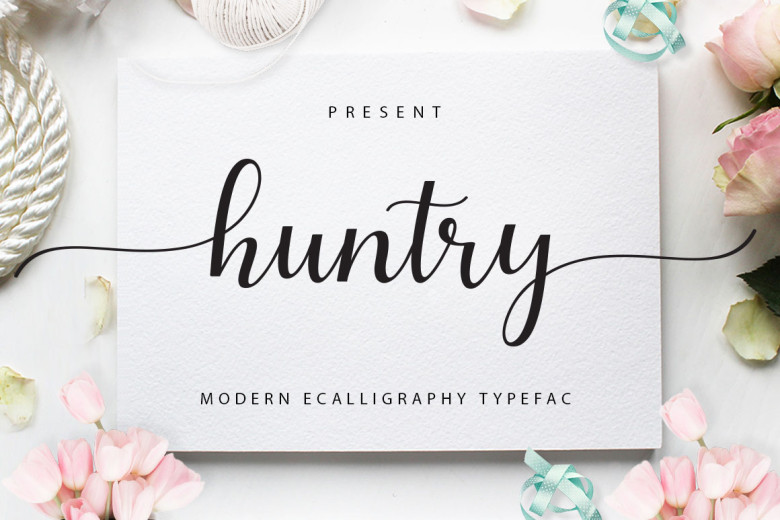
Huntry Font
Huntry is a stunning and bold handwritten font with a romantic twist. It will turn any design project into a stand out! The free version provides all uppercase and lowercase letters and a few special characters too.
Huntry Script Font